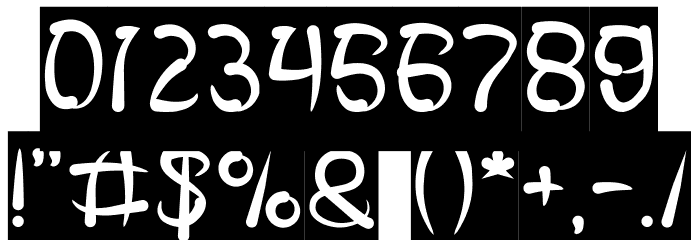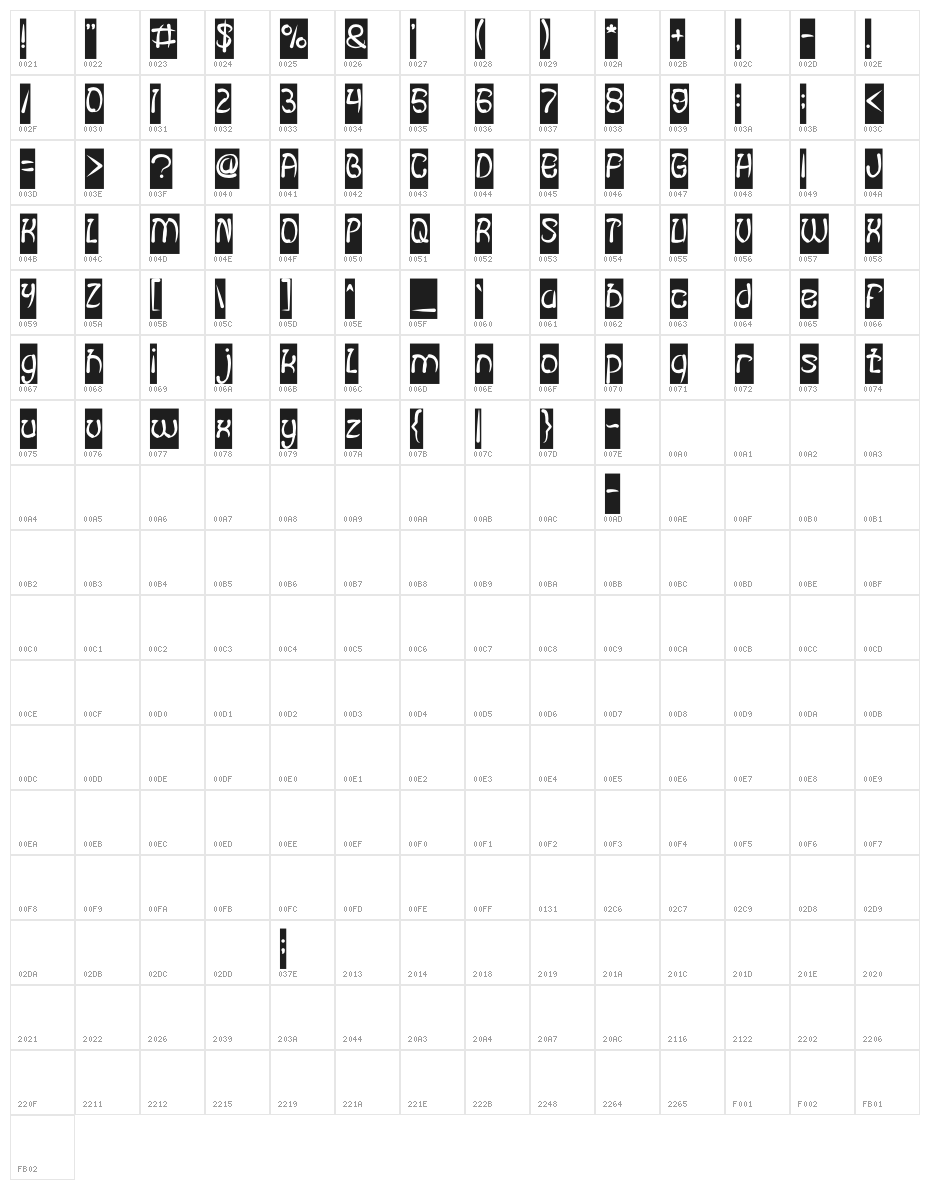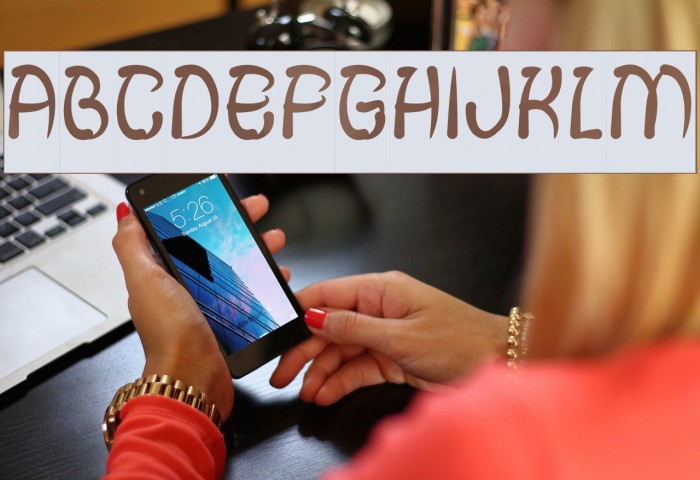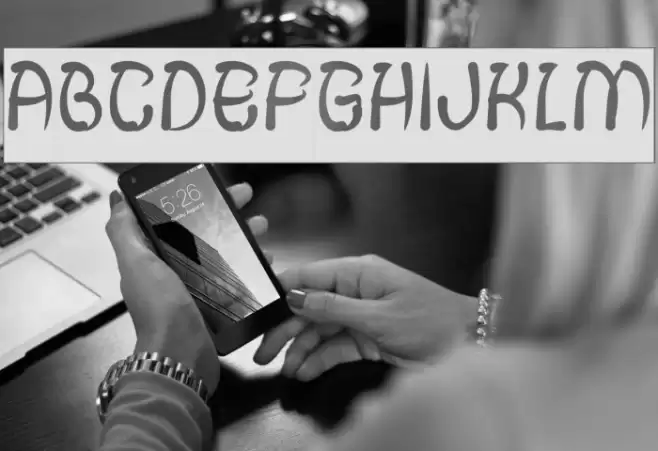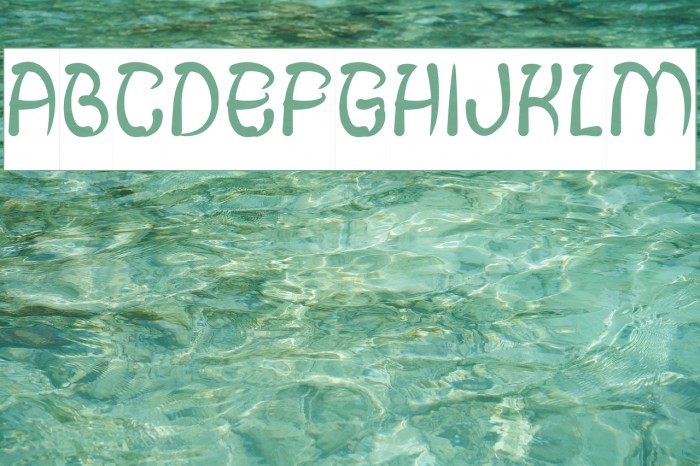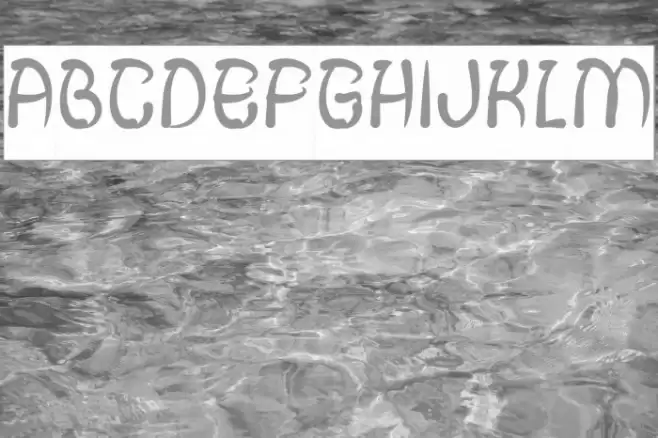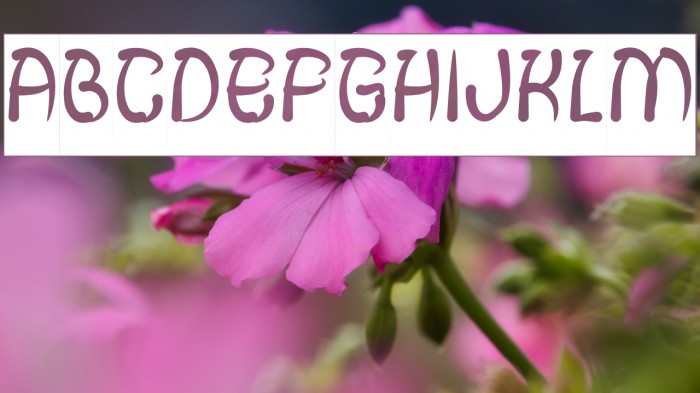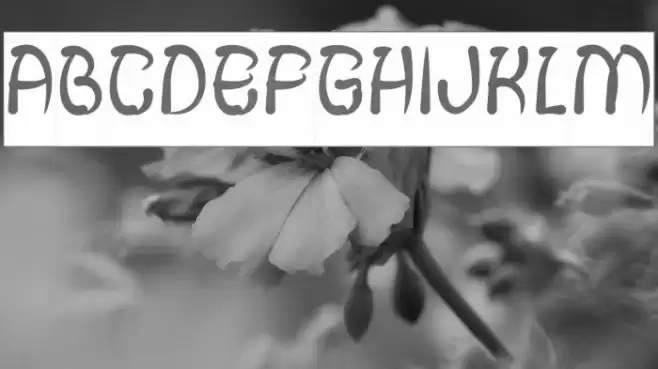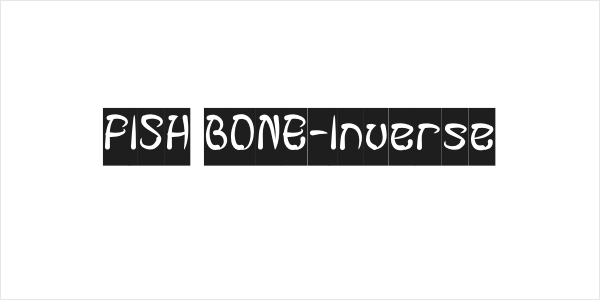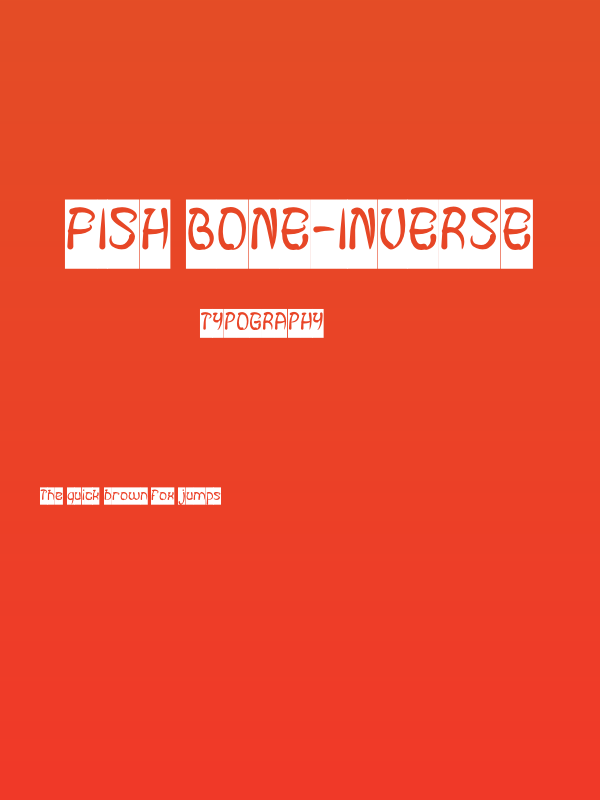
FISH BONE-Inverse Font
FISH BONE-Inverse Description
This font features a playful and unique design with a hand-drawn aesthetic. The characters have a whimsical, organic feel, with curves and loops that resemble the shape of fish bones. The uppercase and lowercase letters maintain a consistent style, with rounded edges and a slightly irregular form that adds to its charm. The numerals and special characters follow the same design principles, ensuring a cohesive look across all glyphs. This font's distinctive style makes it stand out, offering a creative and artistic touch to any project.
| Proposed Projects | Ideal for children's books, creative posters, playful branding, and artistic invitations. |